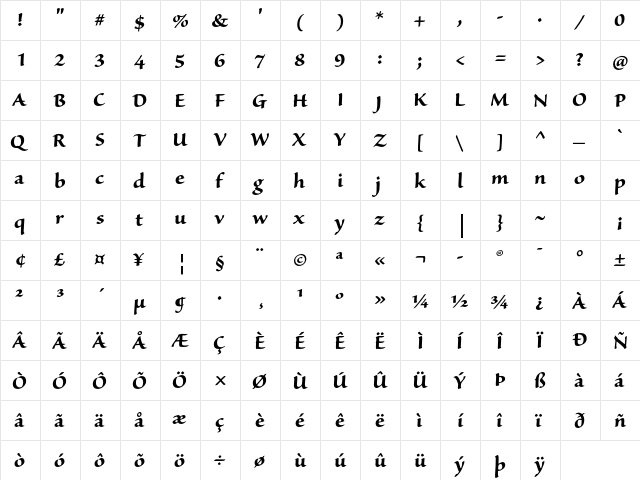
Sanvito Pro Bold
| Designer | Robert Slimbach |
Design Context for Sanvito Pro Typeface
Sanvito Pro takes a measured approach to typography — its balanced proportions and neutral character make it a reliable workhorse for both digital and print work. The heavy weight commands attention and anchors typographic hierarchies.